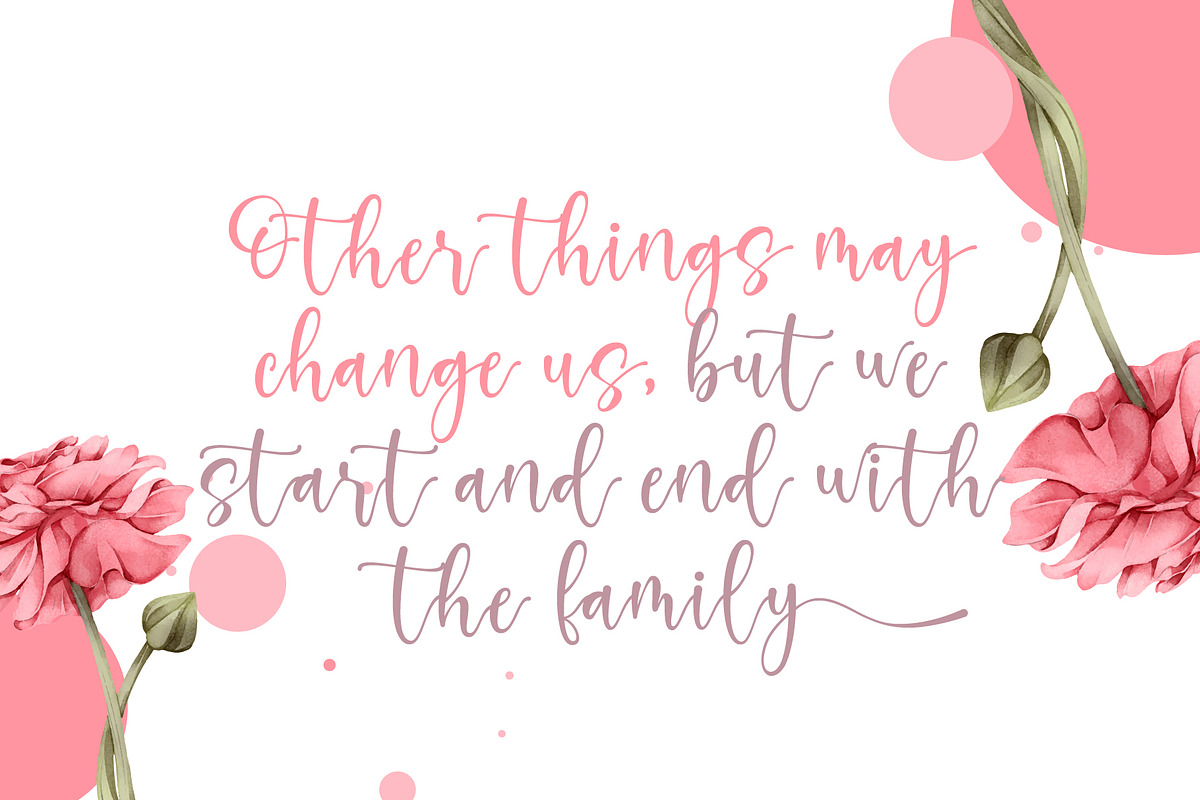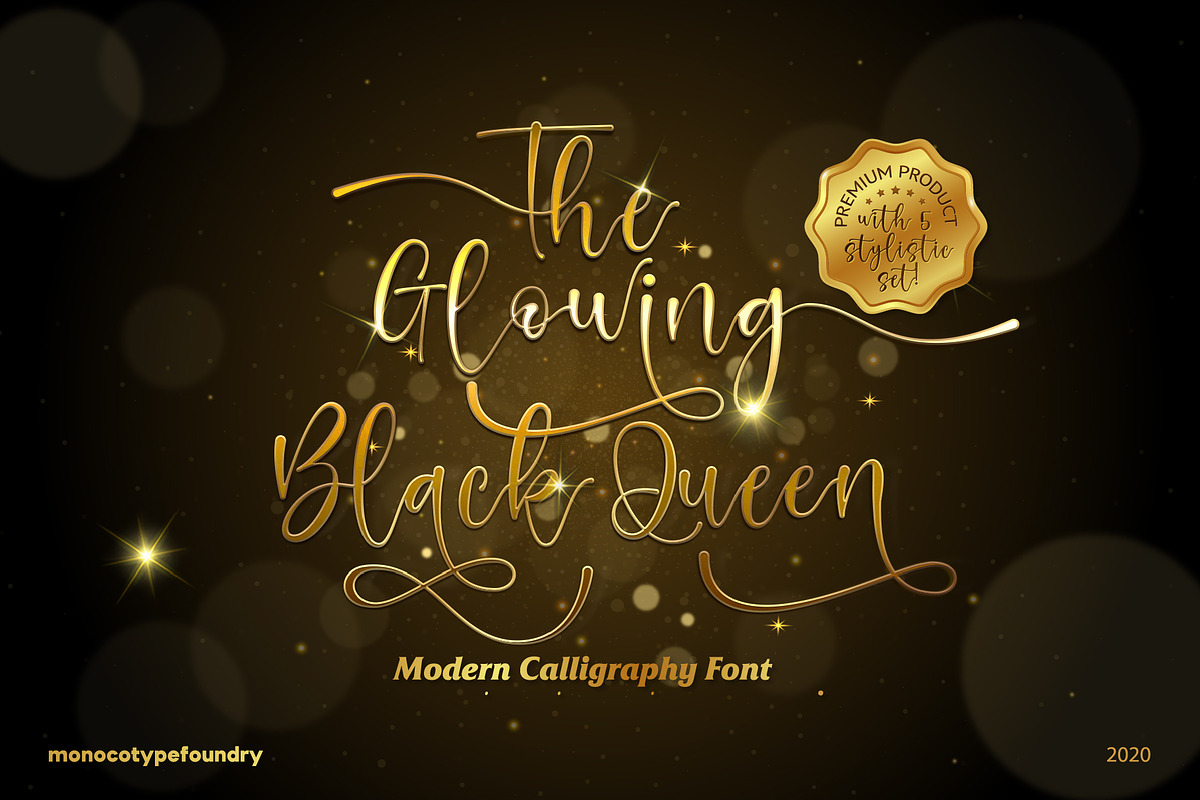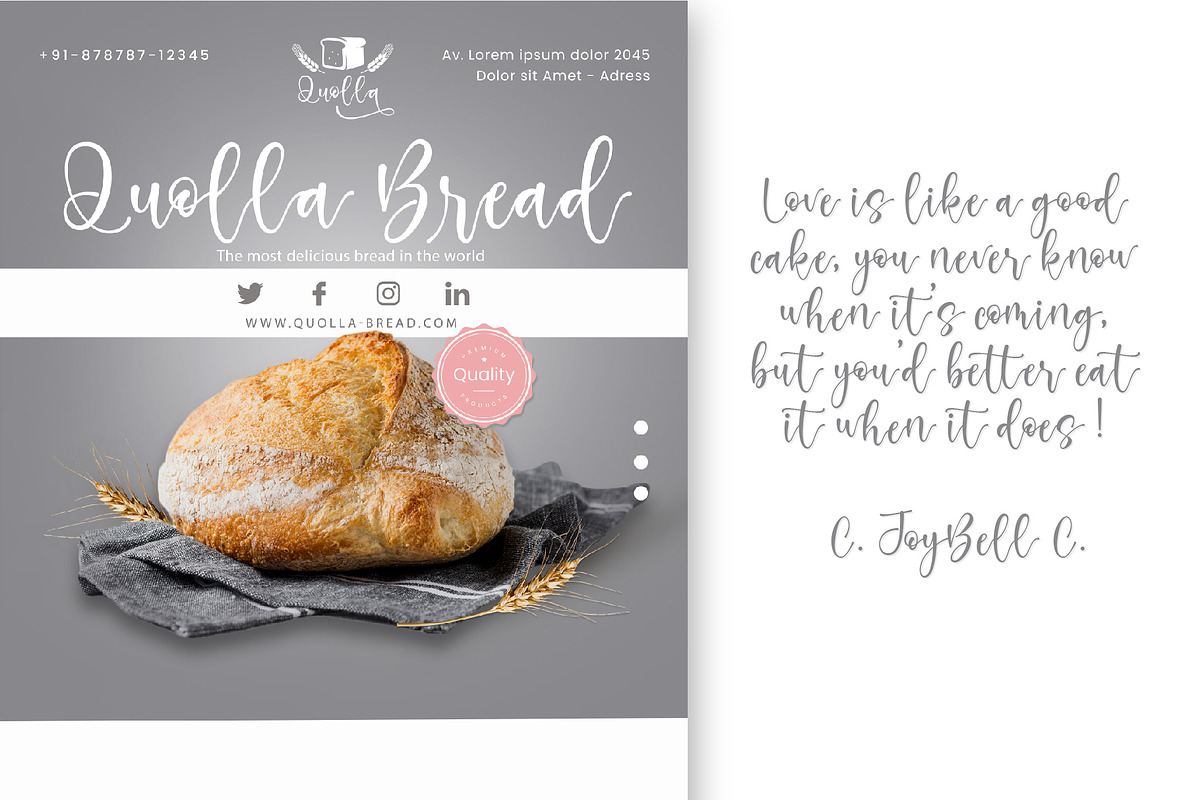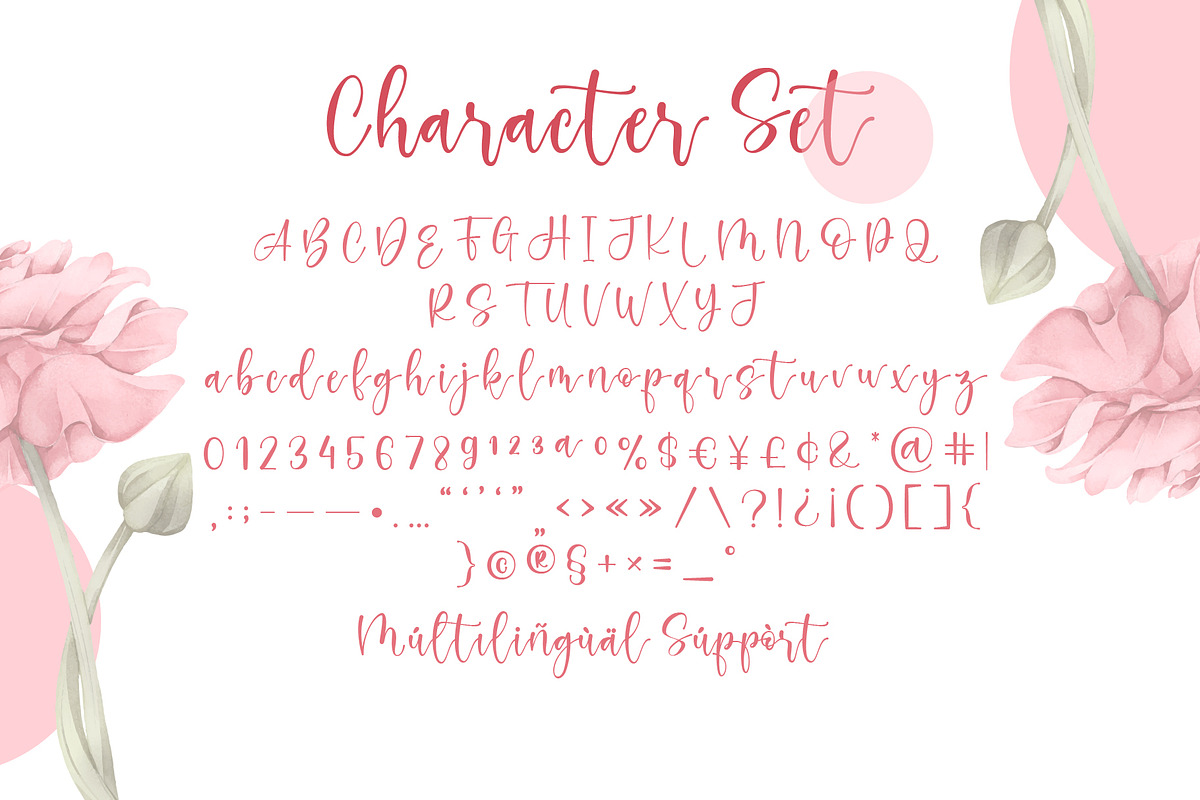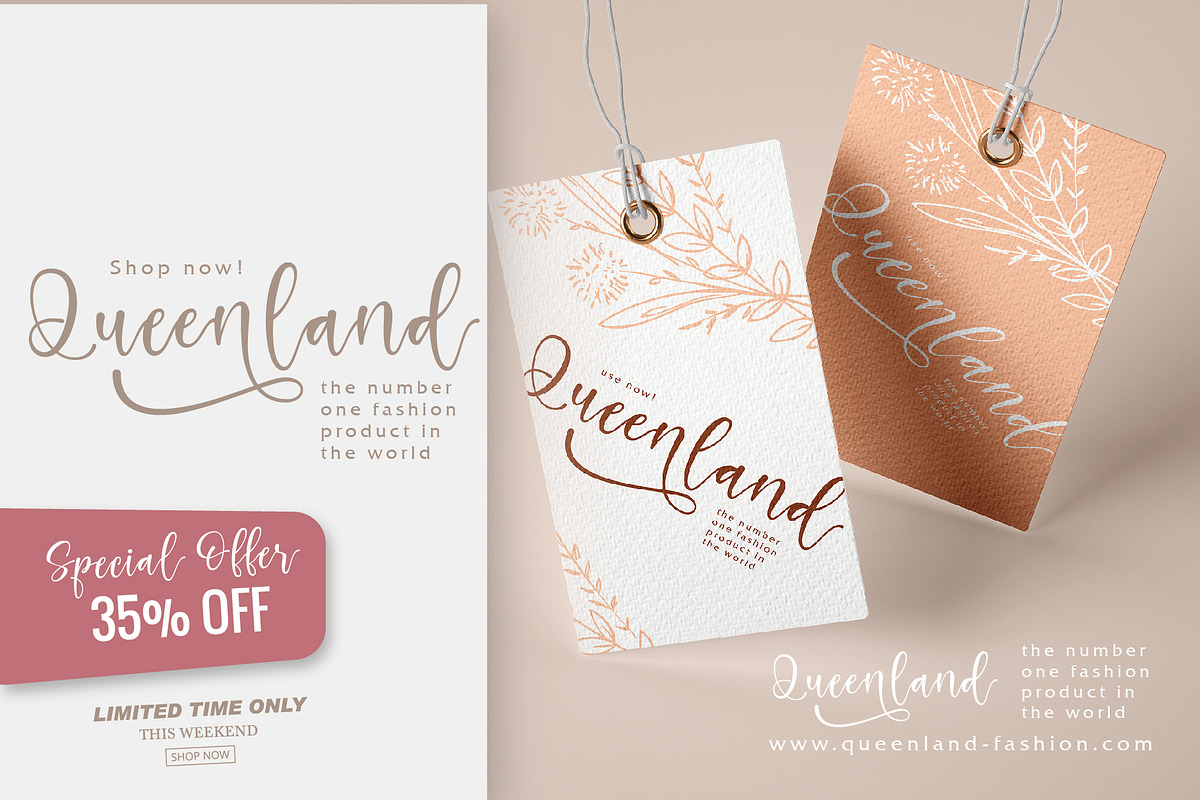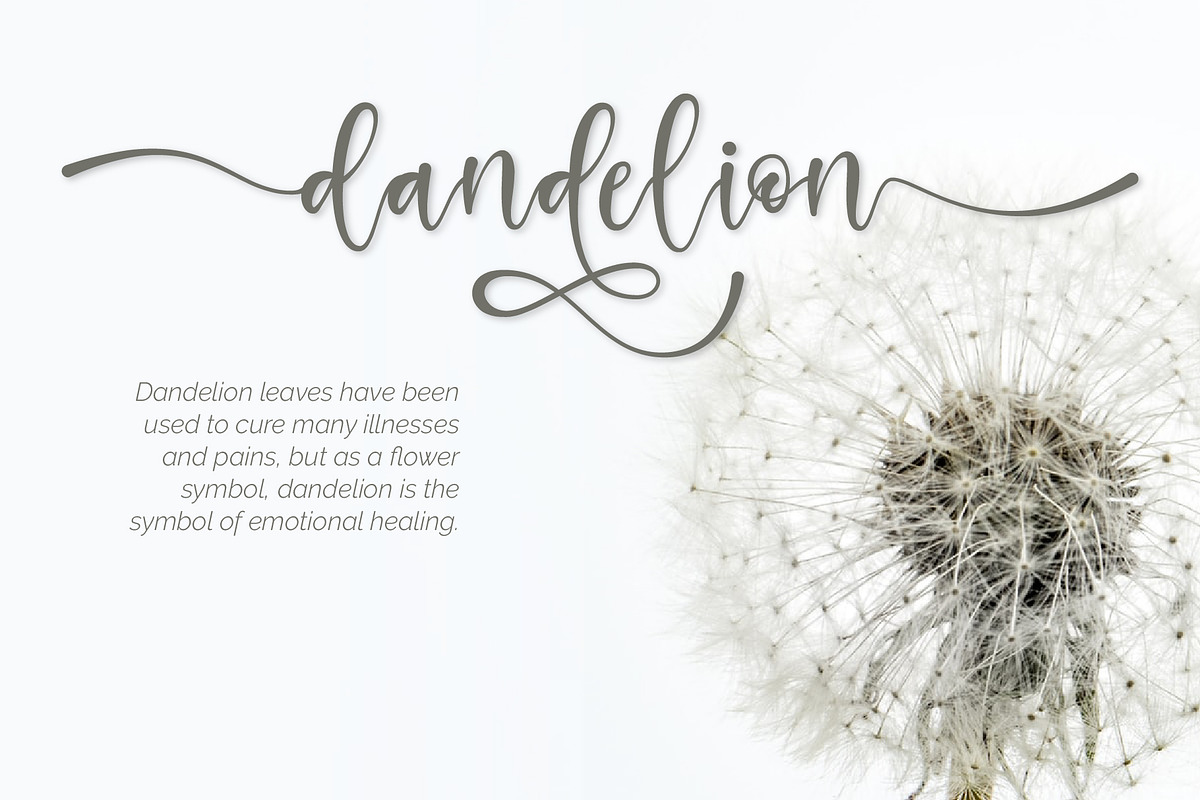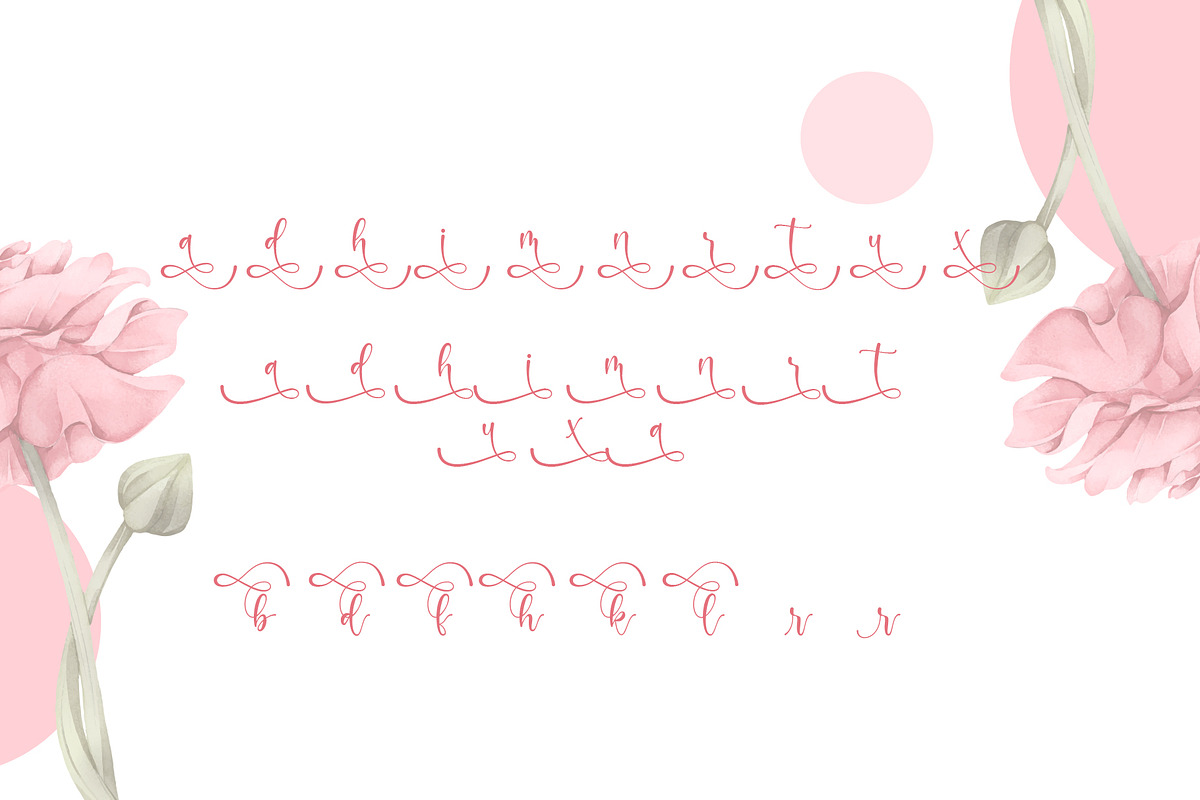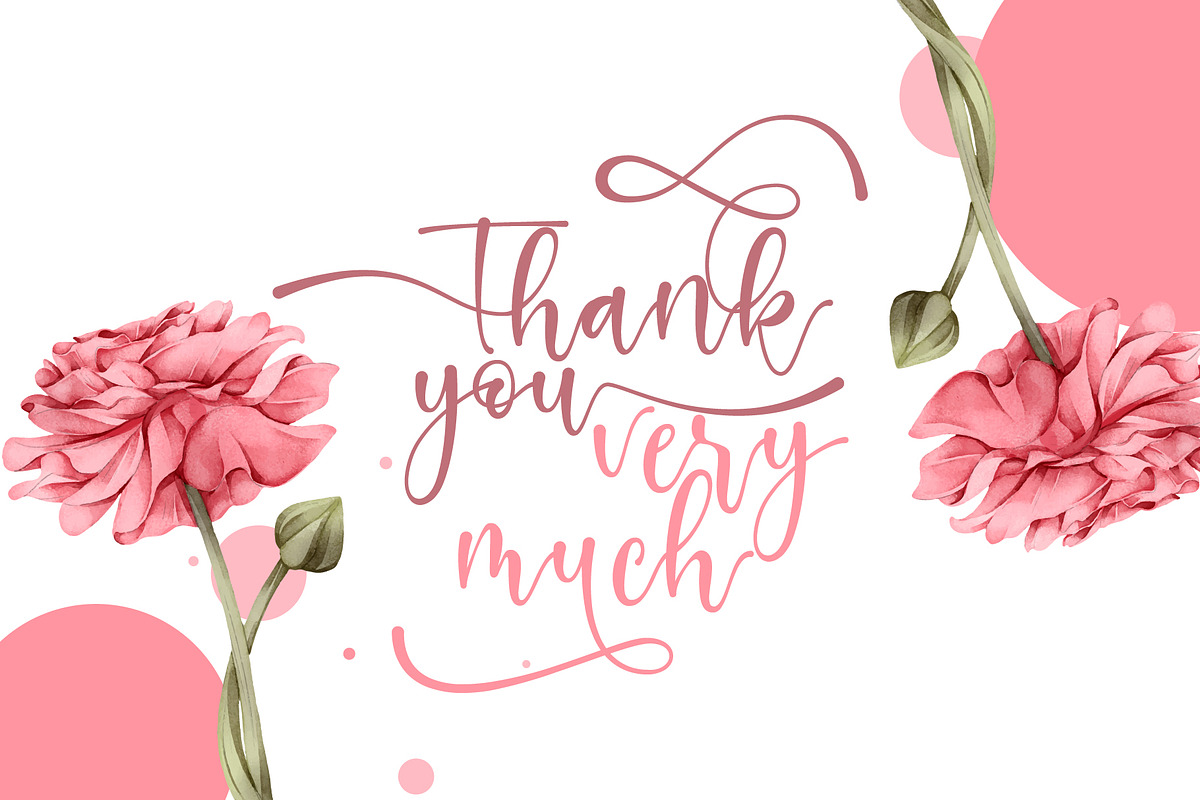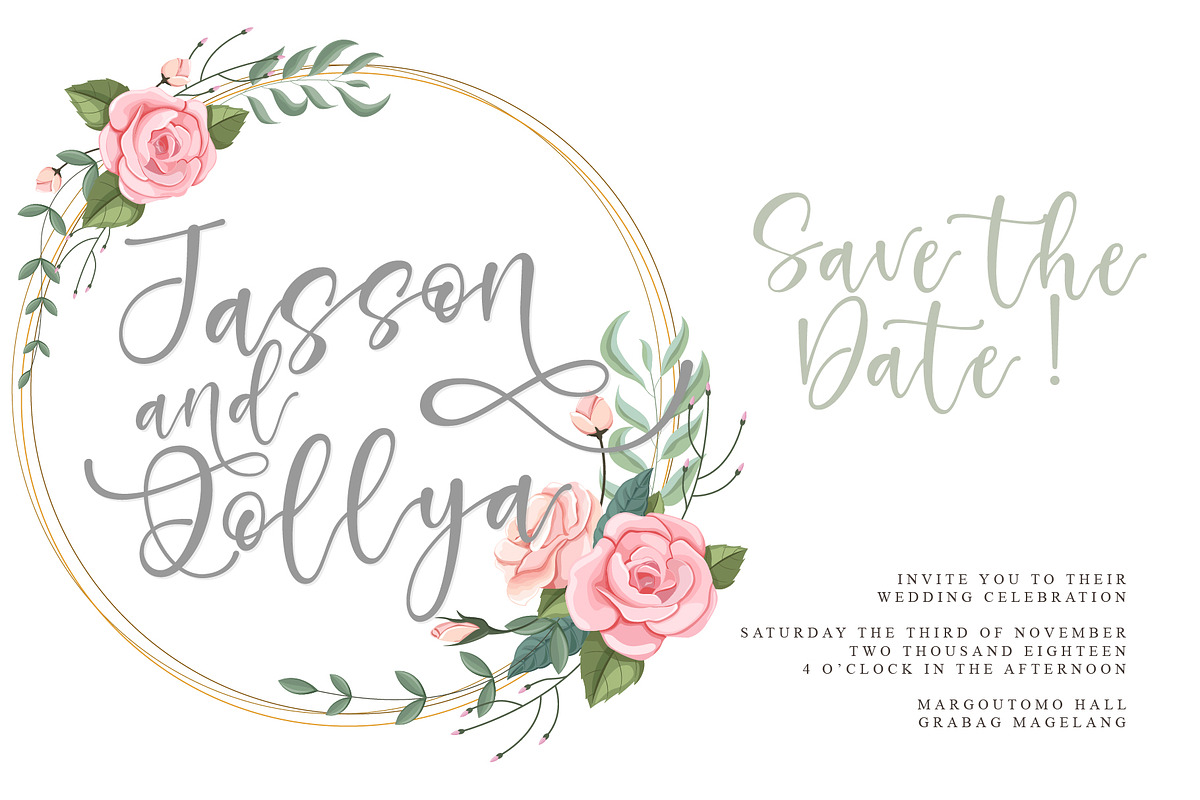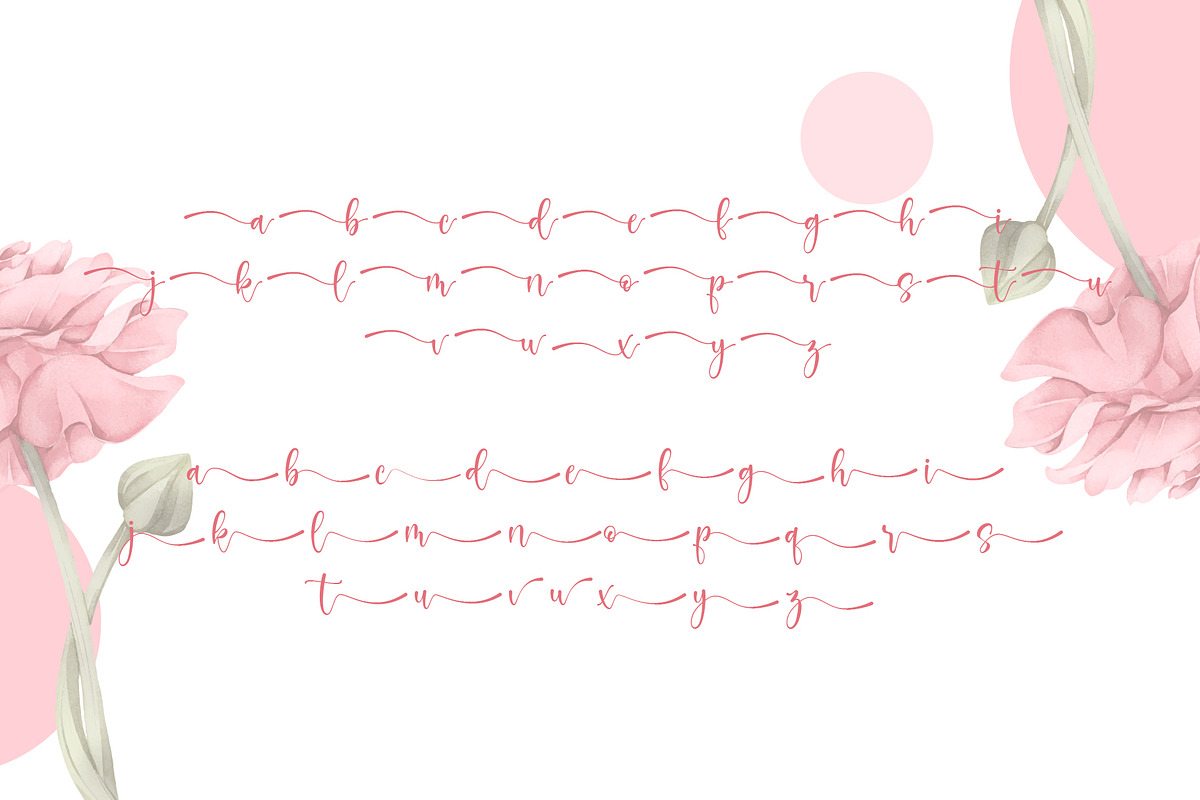
The Glowing Black Queen
The Glowing Black Queen is a script font created with love, sincerity, and patience. can be used to make invitation writing, lettering, and all graphic design needs. This font is equipped with 5 stylistic sets and some alternative characters that will make your design look more attractive and beautiful.